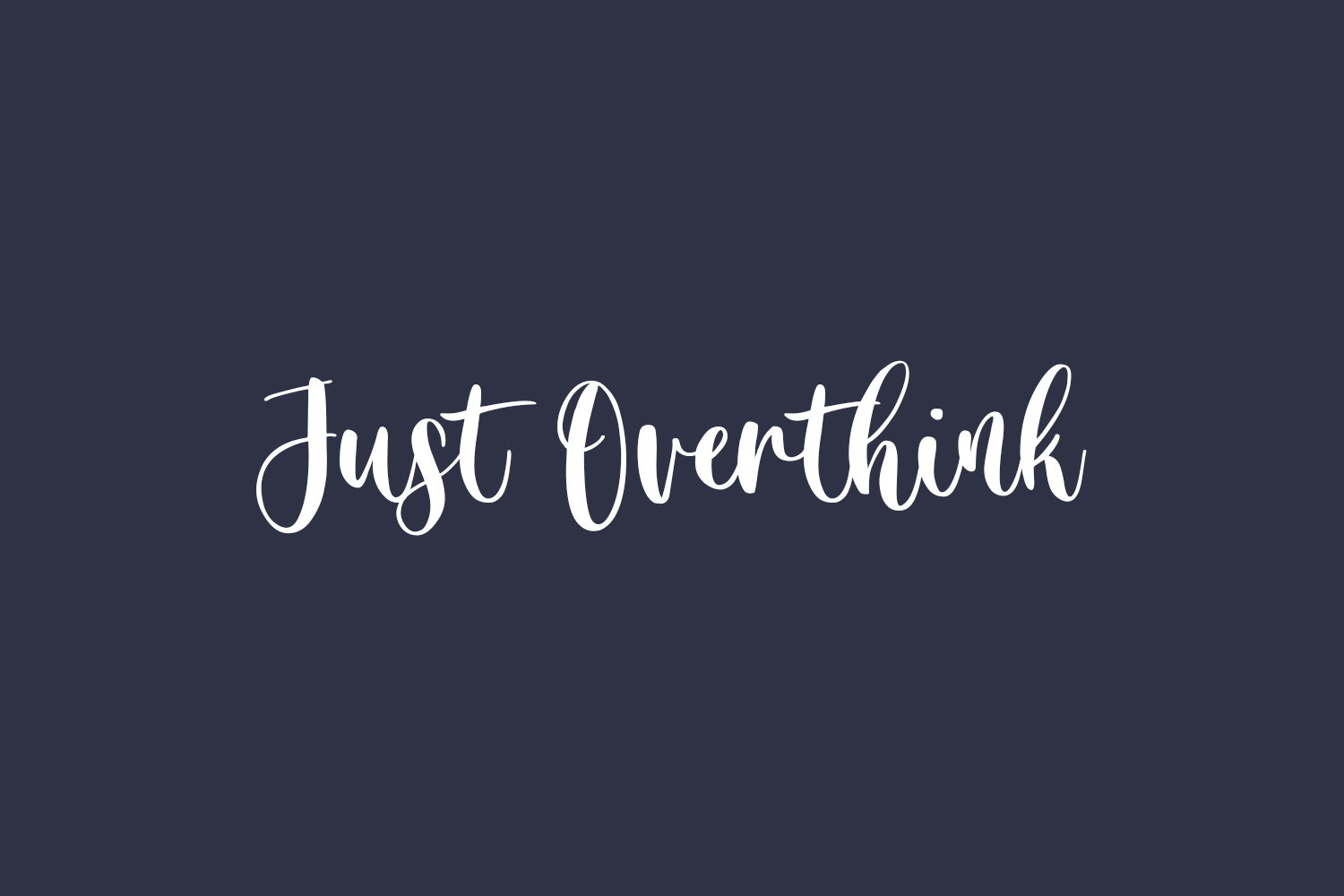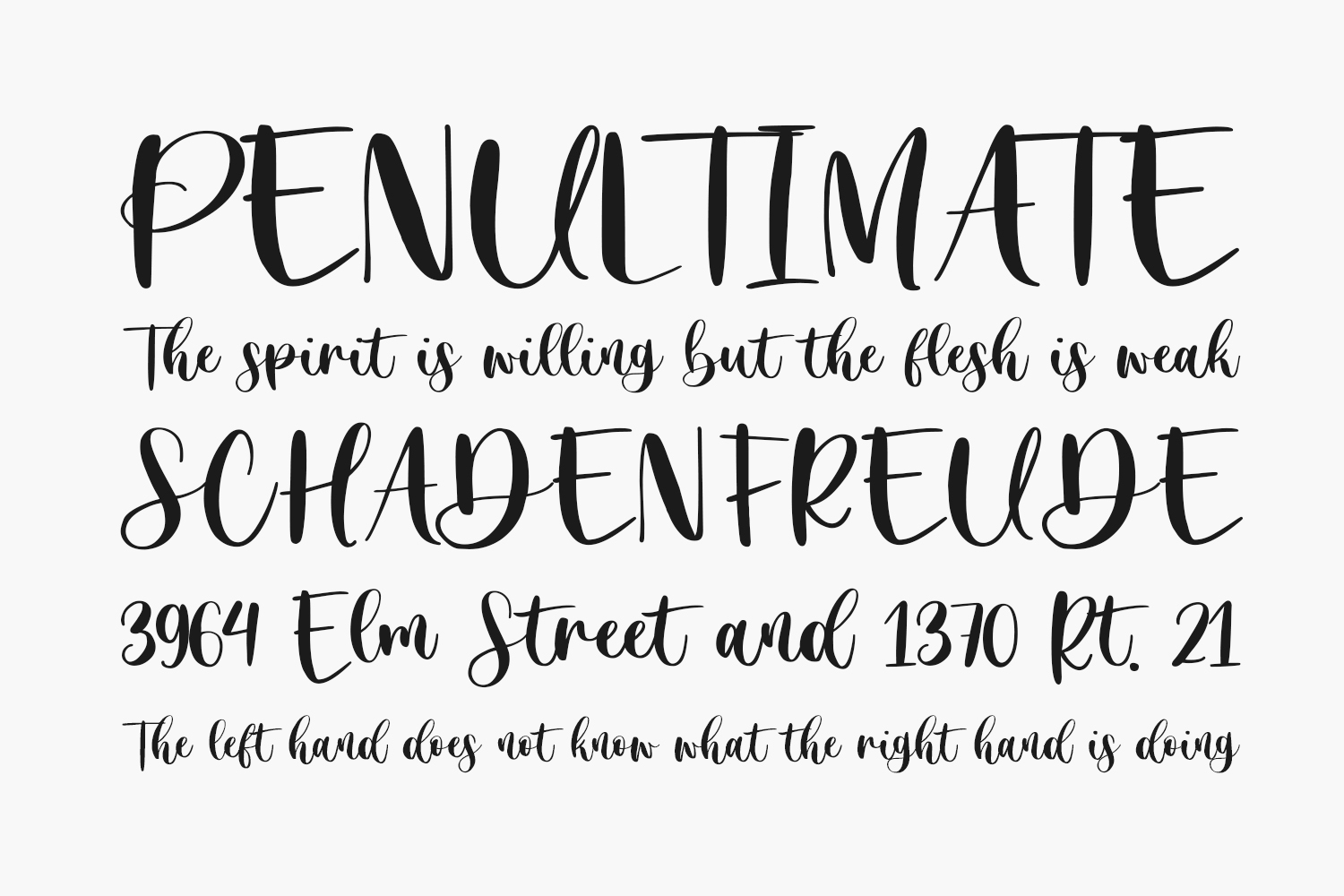
Just Overthink Free Font is a sweet and cursive handwritten font. This gentle font will look gorgeous on a variety of design ideas. It will add a joyful and romantic touch to each of your projects. Just Overthink Free Font was designed by Sronstudio and is free for personal use only. Please purchase the full version for commercial use.